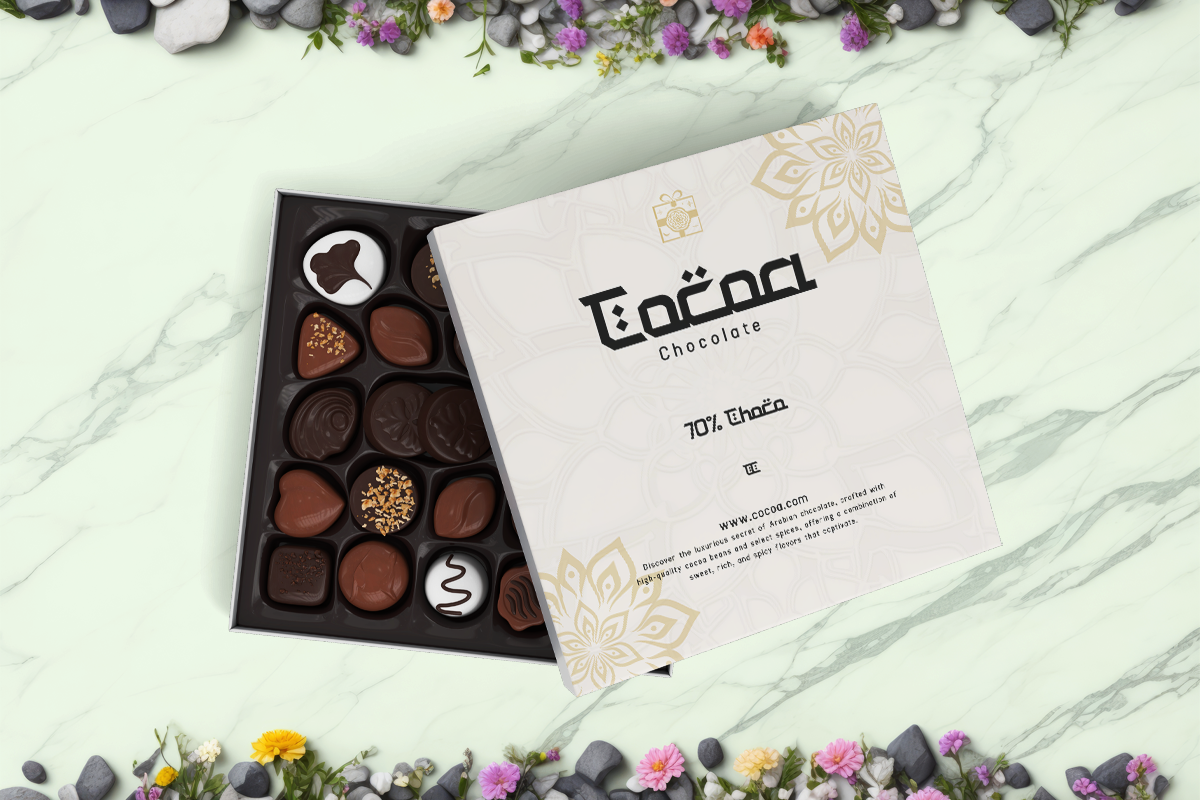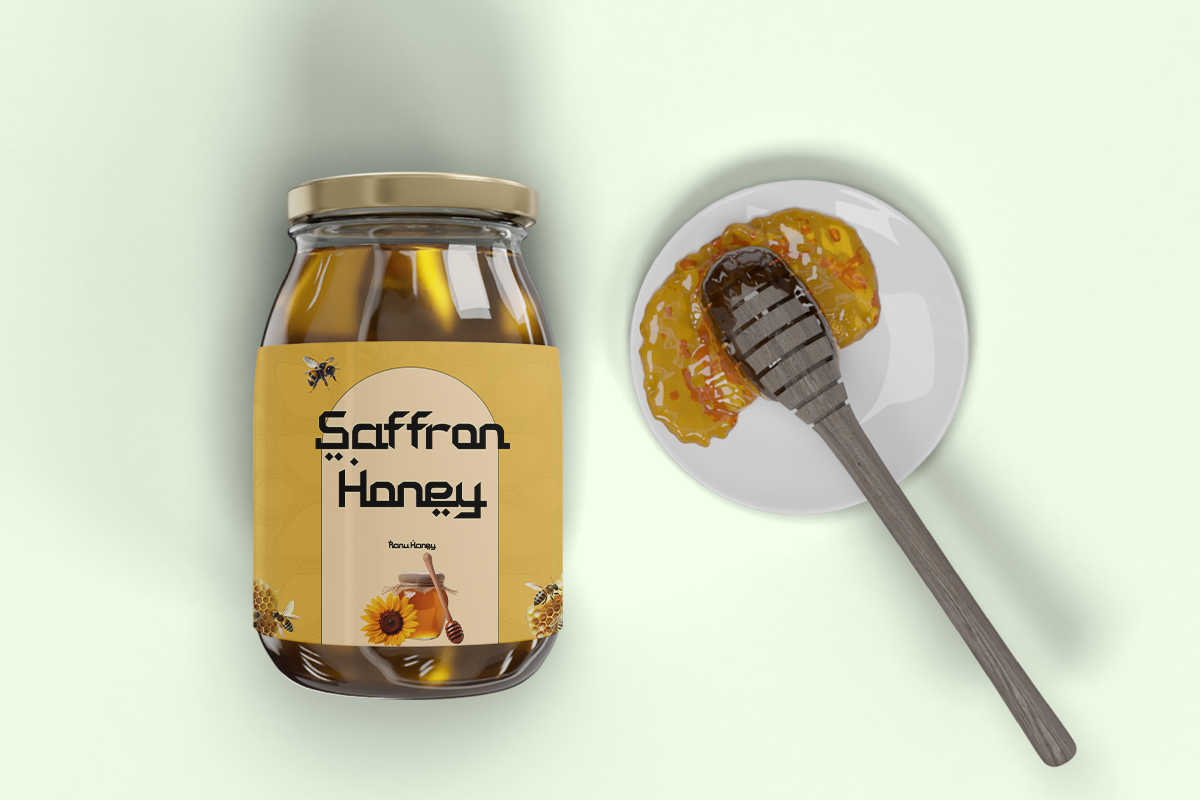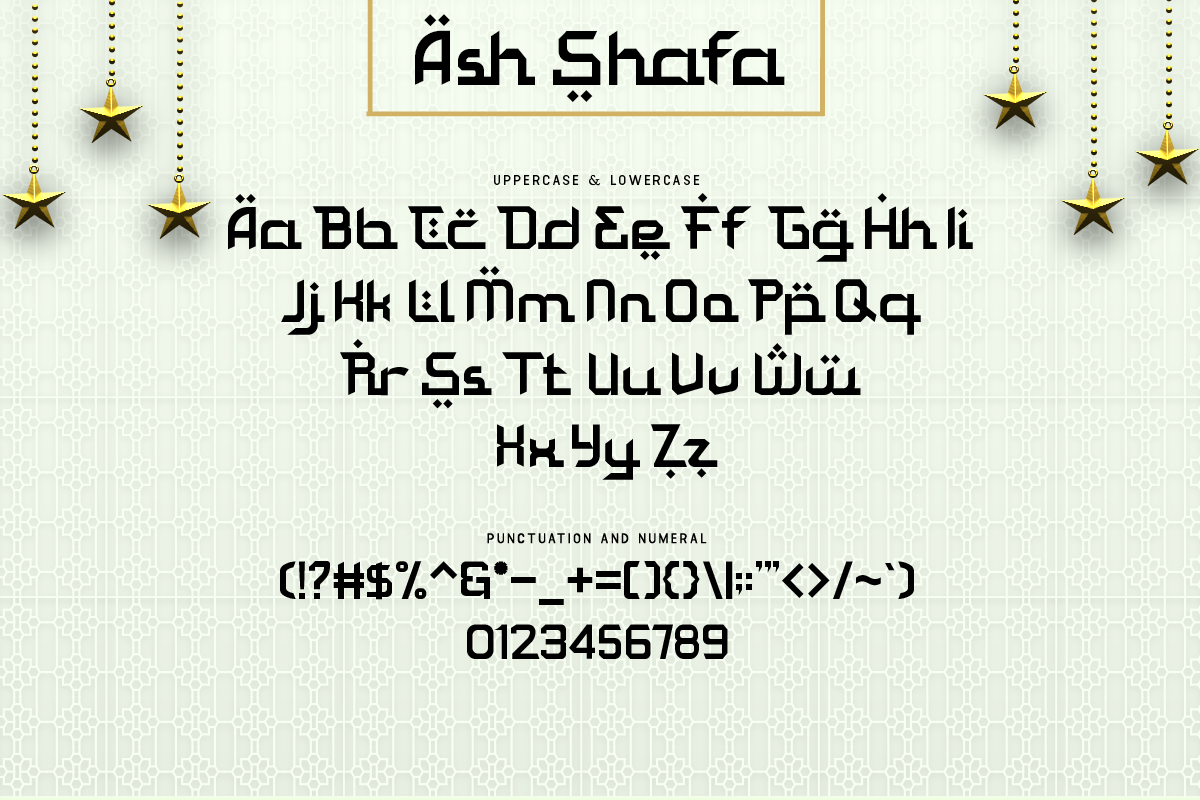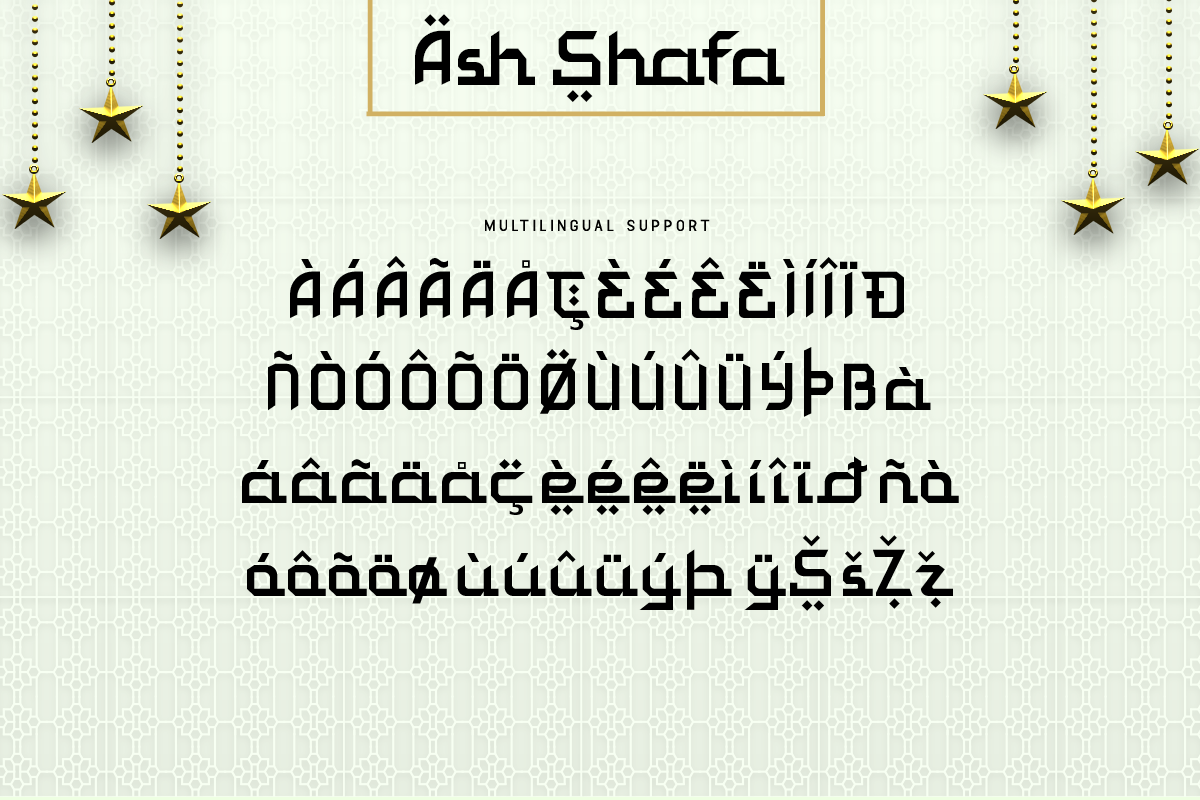
Ash Shafa A Modern Arabic Font Part of our Arabic modern font collection, Ash Shafa A Modern Arabic Font is a modern font with simple and elegant vibes. A beautiful typeface that anyone who sees it can easily fall in love with. Ash Shafa A Modern Arabic Font can be used as a digital font and print font. This font can be written as book covers, magazine covers, and women's book covers. This font can be used as a poster and banner. These reasons must be complemented by colors and ornaments that support it. For small-size print fonts, this font can also be used for product branding, such as; skincare packages, and perfume, or can be produced on t-shirts, jackets, hats, etc. In addition, it can be used as snack packaging. The digital application of this font is in product advertisements, animated videos, Arabic films, and others. It can give an exciting and beautiful impression to video shows. This is to attract interest in buying products being marketed and watching movies that have been shown. Our Display font collection is compatible to use as; Figma fonts, Canva fonts, Freepik Fonts, and Adobe Fonts. They also work as Windows Fonts and Apple Fonts. For your social media needs, you can use and install fonts in our collection of Espot & Futuristic fonts to use as Instagram Fonts, Facebook Fonts, and Twitter Fonts.